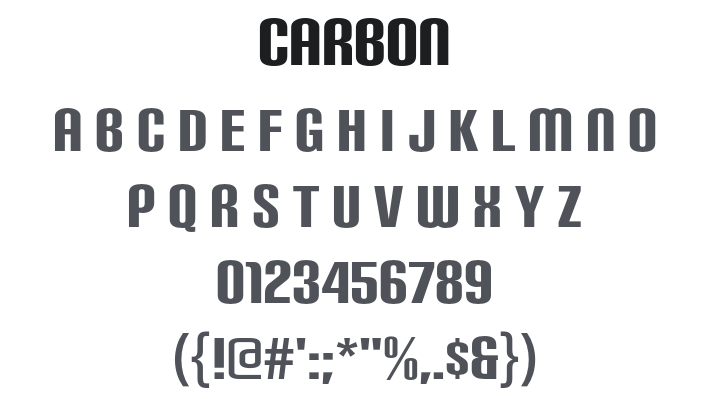
Carbon Font Family
• Carbon Black
• Carbon Phyber
About Carbon
Carbon is a unicase geometric typeface built from modular, capsule-shaped forms that balance industrial precision with human warmth. Its seven weights with italics range from light, airy text styles to bold, high-impact display cuts, maintaining a consistent rhythm across the family. Two special versions... Carbon Phyber with a fine hexagonal mesh and Carbon Fence with a diagonal wire texture... extend its range into high-tech and urban themes. Clean, modern, and versatile, Carbon brings clarity and strength to branding, editorial, and environmental design while supporting a broad set of Latin-based languages.